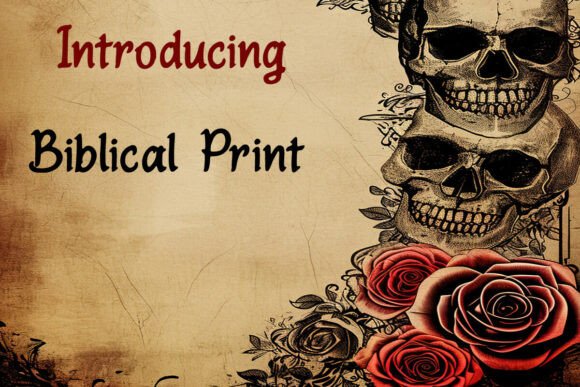
Timeless Typography: Unlock the Power of Biblical Print Font
Do you remember the feeling of rummaging through your grandmother’s old trunk, uncovering a treasure trove of vintage postcards and dusty photographs? The nostalgia that washes over you as you hold those yellowed pages is exactly what you can evoke with the Biblical Print Font.
Crafted to transport your designs to a bygone era, Biblical Print Font is the perfect addition to any creative project. Whether you’re designing a warm greeting card or revamping your social media presence, this font brings a touch of timeless elegance to your work. With its versatility and classic charm, Biblical Print Font is a valuable tool for designers looking to add a unique twist to their projects.
By incorporating Biblical Print Font into your designs, you can elevate your work and make it truly unforgettable.
Biblical Print Font Key Features
• Unique Characteristics: The font features intricate details, ornate flourishes, and classic calligraphic elements, evoking a sense of elegance and sophistication.
• Design Style: Inspired by traditional biblical manuscripts, the font combines historical elements with modern design principles, creating a unique and captivating visual experience.
Biblical Print Font Review
When I first laid eyes on the Biblical Print Font, I was immediately drawn in by its unique, vintage aesthetic ✨. The font’s distressed, handwritten feel is reminiscent of ancient scripture and adds a touch of elegance to any design. I particularly love how it pairs well with bold, modern fonts to create a beautiful contrast.
One of the standout features of the Biblical Print Font is its versatility ✨. It’s perfect for a wide range of projects, from wedding invitations to book covers. The font’s vintage feel also lends itself well to designs that need a touch of nostalgia or retro charm.
However, there are some limitations to consider ⚠️. The font’s distressed look can sometimes make it difficult to read, particularly in smaller sizes. Additionally, the font may not be suitable for designs that require a clean, modern aesthetic.
Overall, I’m impressed with the Biblical Print Font’s unique look and versatility. While it may have some limitations, it’s a great choice for designers looking to add a touch of elegance and vintage charm to their designs.
Here are some pros and cons to consider:
• Unique, vintage aesthetic ✨
• Perfect for a wide range of projects
• Not suitable for designs that require a clean, modern aesthetic ⚠️
• May be difficult to read in smaller sizes ⚠️
Getting the Most Out of the Biblical Print Font
For optimal results, use the Biblical Print Font for titles, headings, and body text in formal or vintage-inspired designs.
– Pair it with classic fonts like Times New Roman or Garamond for a timeless look.
– Use it for invitations, posters, and other print materials that require a traditional feel.
– Experiment with different font sizes and styles to create visual interest.
The Biblical Print Font is perfect for:
– Vintage-inspired posters and prints
– Formal event invitations and programs
– Book covers and interior design
– Any project that requires a classic, traditional feel.